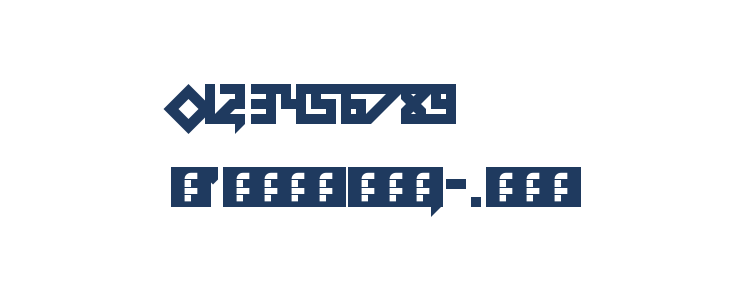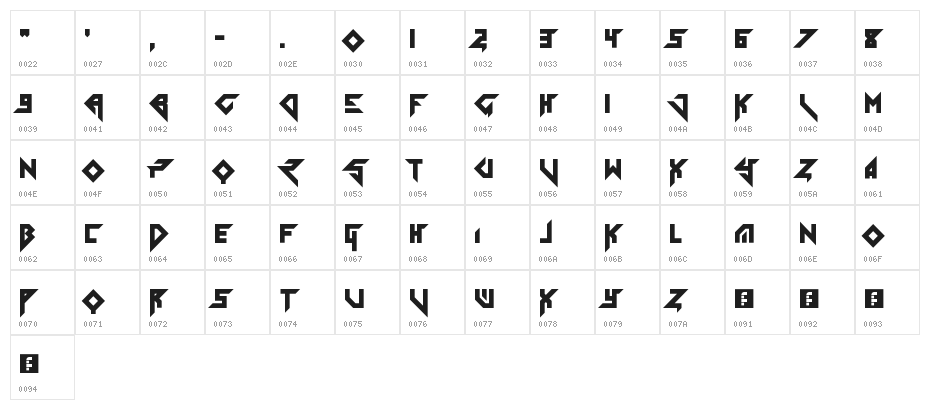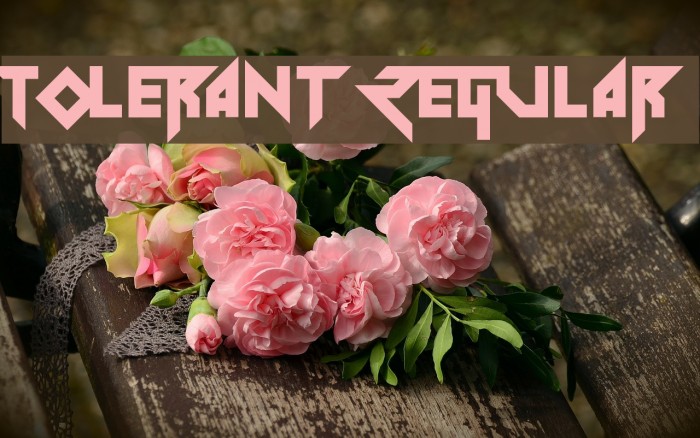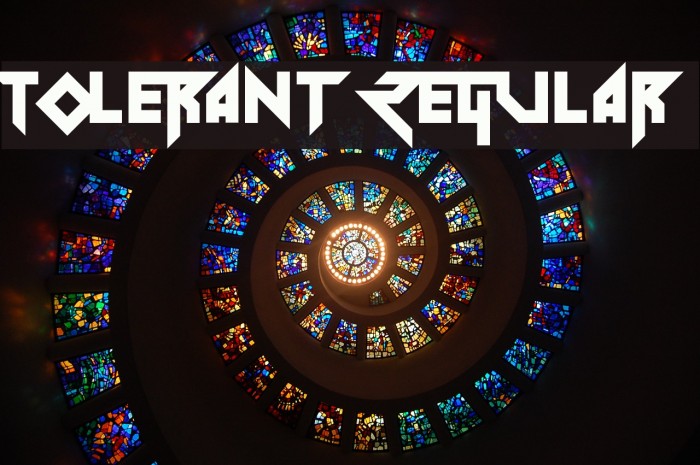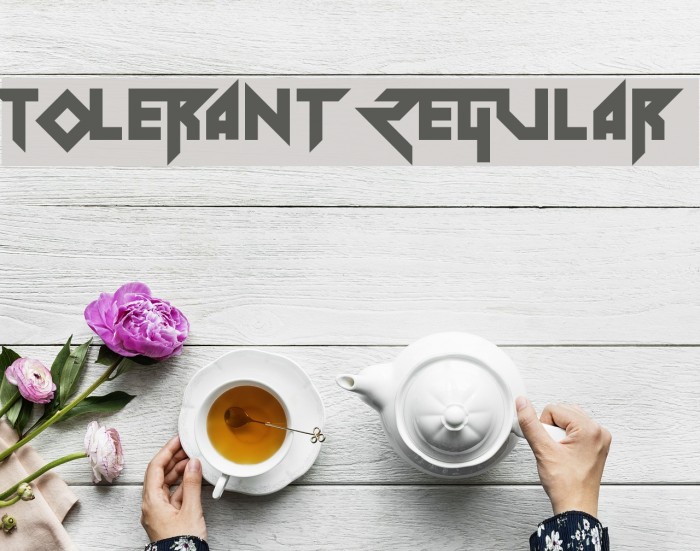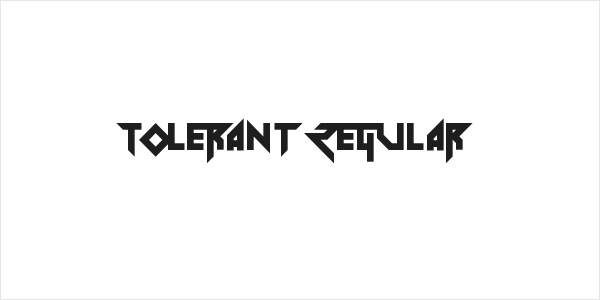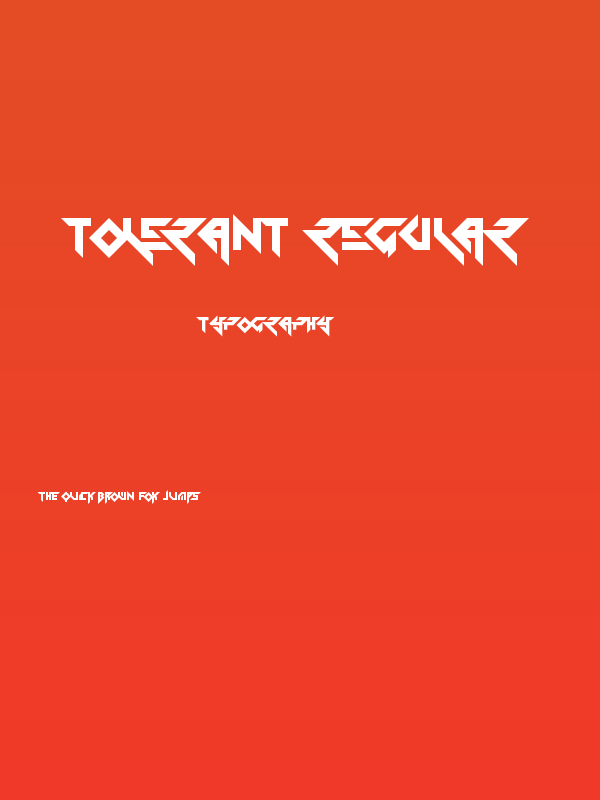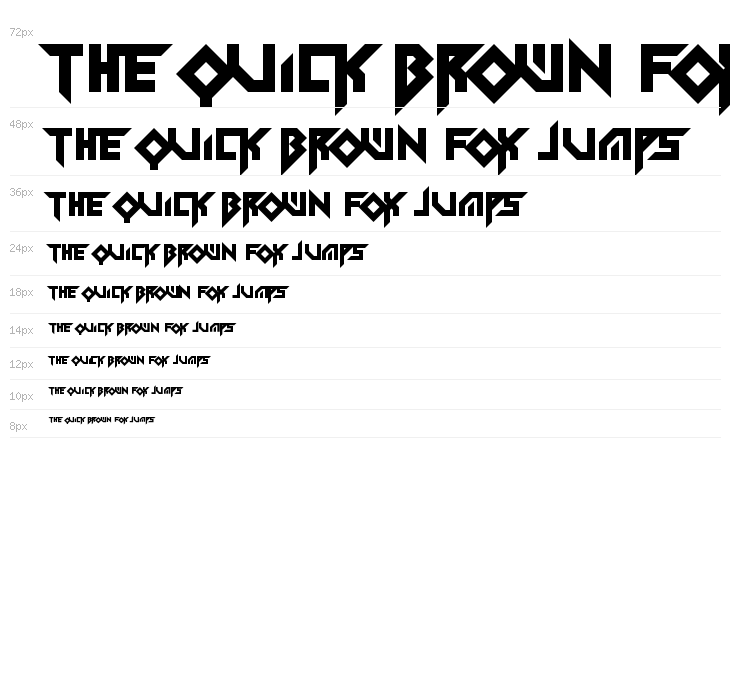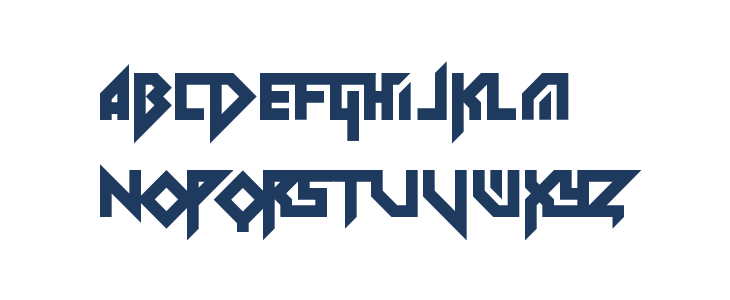
Tolerant Regular Font
Tolerant Regular Description
This font features a bold, geometric design with sharp angles and a futuristic aesthetic. The characters are constructed with thick lines and pointed edges, creating a striking and aggressive appearance. The uppercase and lowercase letters maintain a consistent style, emphasizing symmetry and uniformity. Numbers and special characters follow the same angular design, ensuring a cohesive look across all elements. This font's unique style makes it ideal for projects that require a modern and edgy feel.
| Overall Style | Futuristic, Edgy |
| Proposed Projects | Ideal for video game titles, sci-fi movie posters, tech branding, and edgy graphic design projects. |